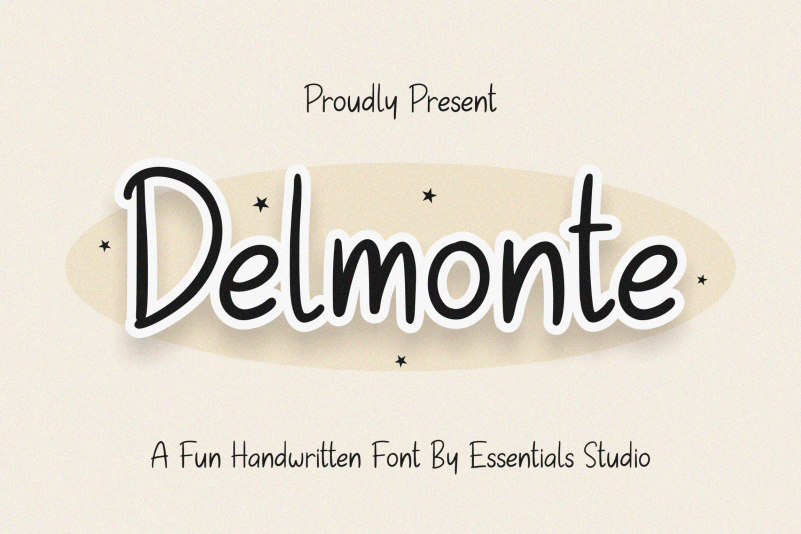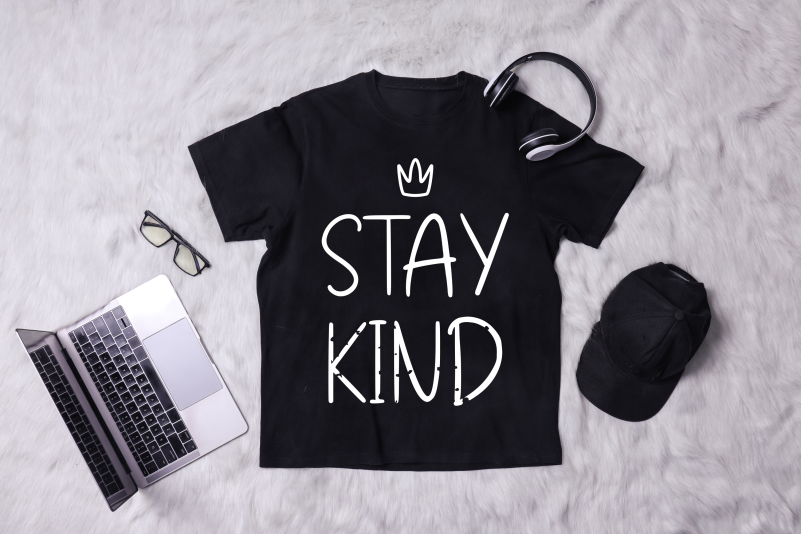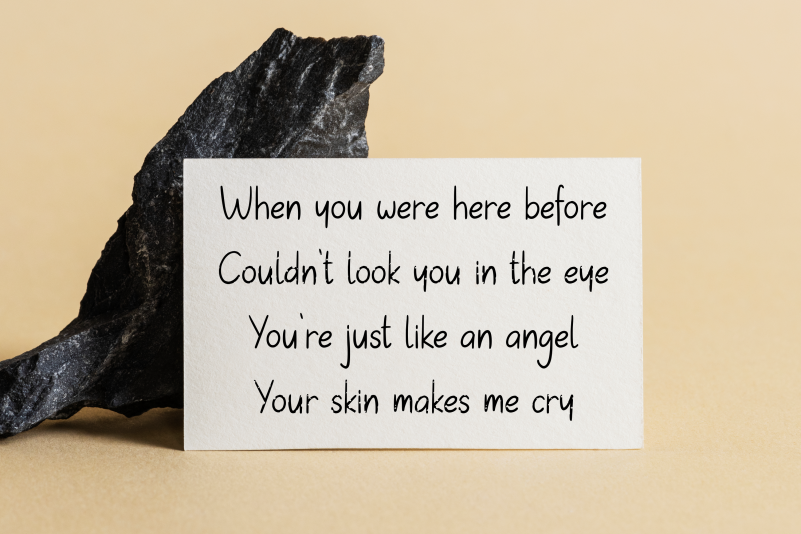
Delmonte Font
Delmonte Font Is a A Cute Handwritten Font. Delmonte is perfect for product packaging, branding project, megazine, social media, wedding, or just used to express words above the background.